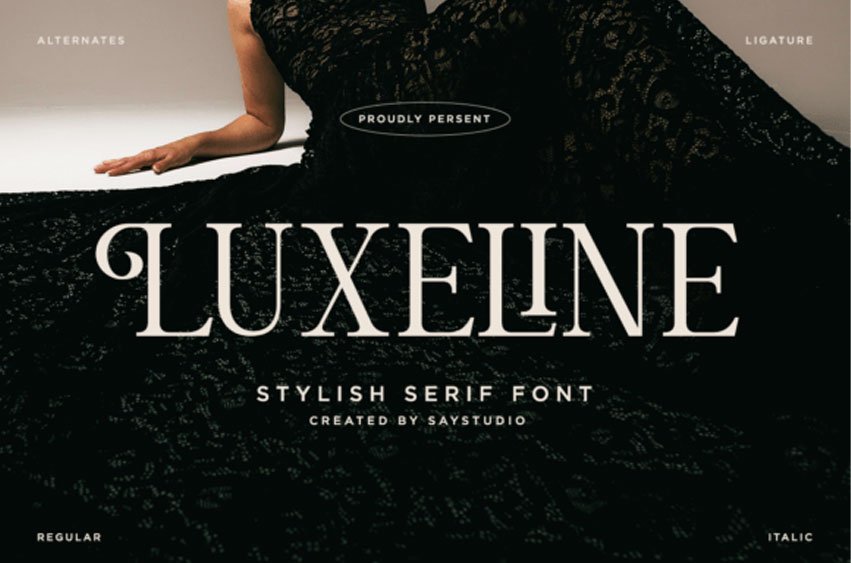
Luxeline Font is a supremely stylish serif typeface that masterfully blends classic, high-contrast elegance with daring, contemporary curves, embodying a sense of high-fashion and luxury.
This display serif font is defined by its sharp, refined serifs and striking character shapes, particularly the dramatic loop and swash elements built into the uppercase letters, which elevate it beyond a standard serif. The Luxeline typeface is the ultimate choice for branding high-end products, designing exclusive magazine covers, creating upscale website headers, and crafting prestigious logotypes that demand attention.
With extensive alternate characters and ligatures, the Luxeline font allows for highly customized, artistic typography that feels bespoke and exclusive.
This versatile and bold, stylish serif font is designed to convey confidence and sophistication, making it essential for luxury marketing, fashion editorials, and premium cosmetic packaging,ng where only the most glamorous aesthetic will suffice.